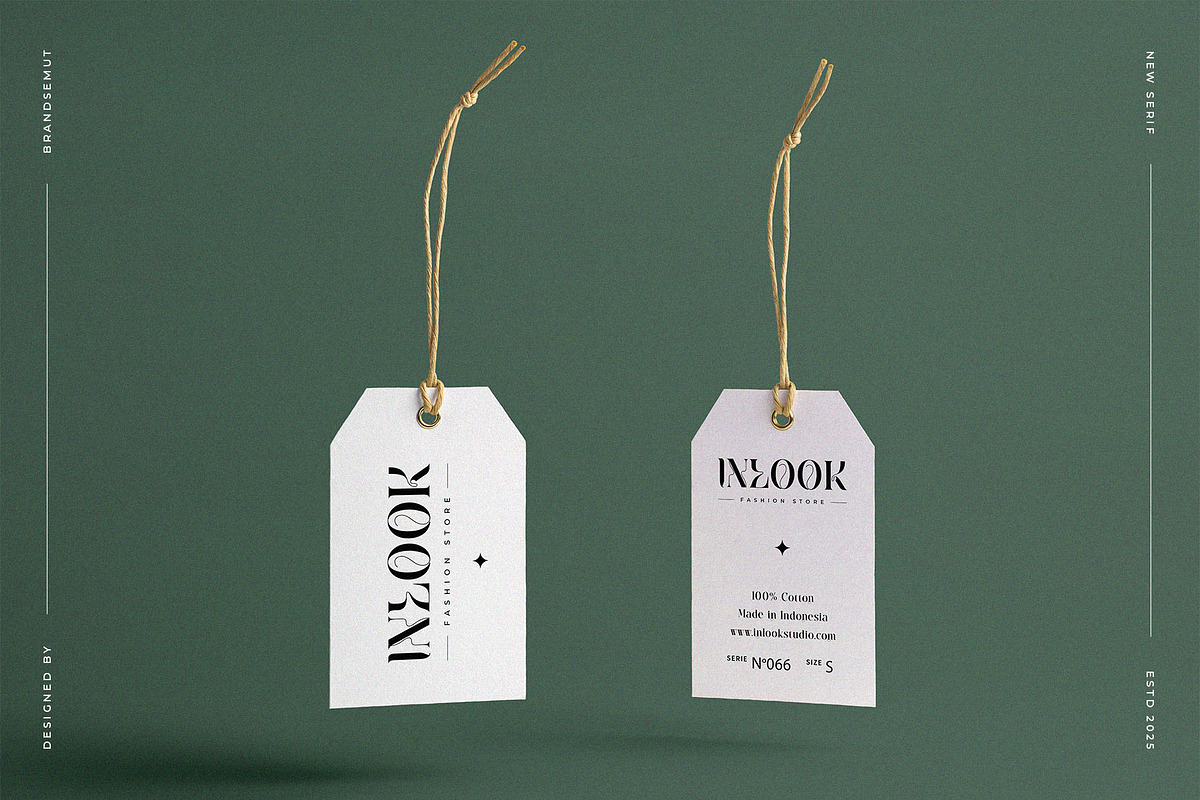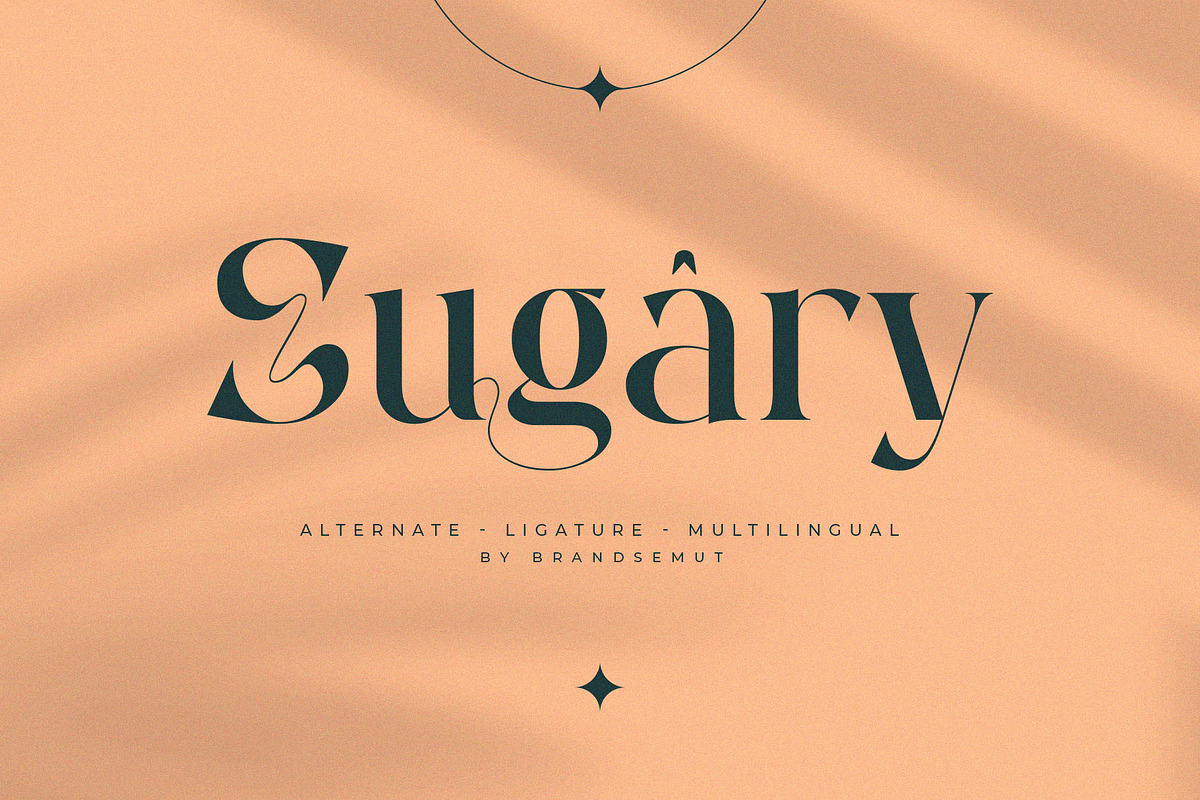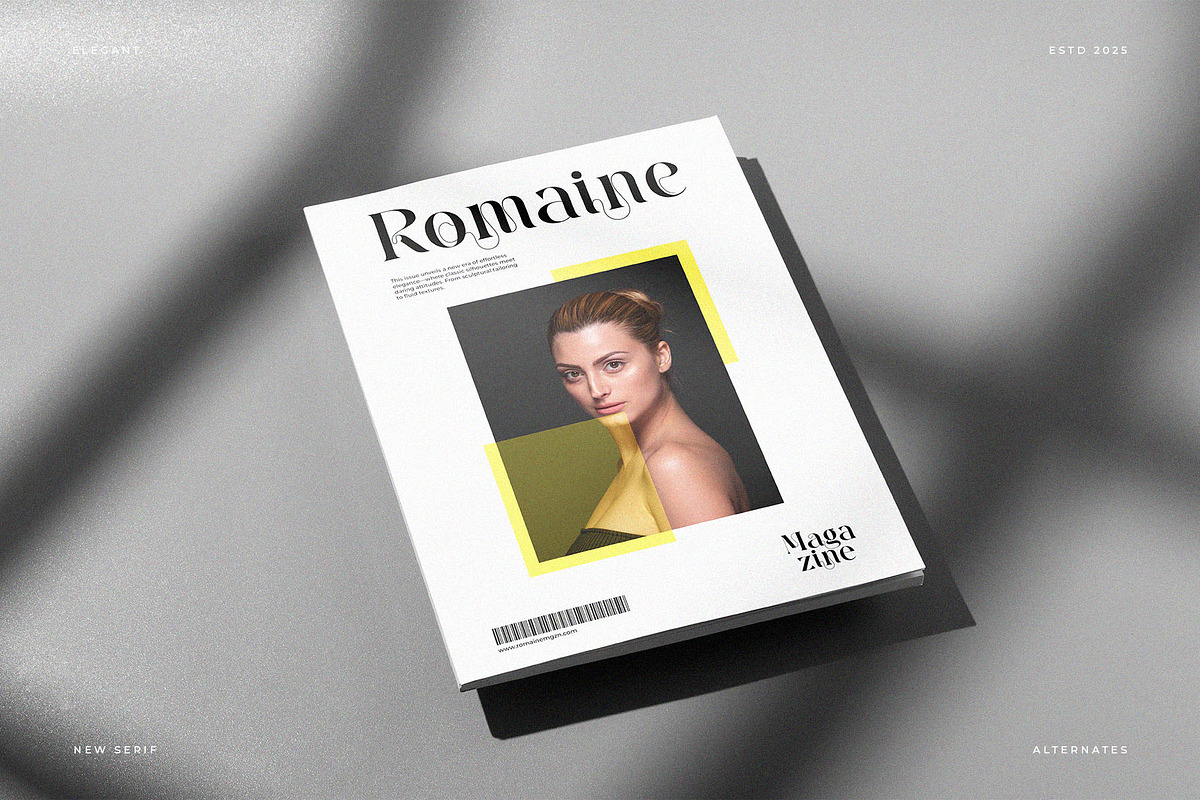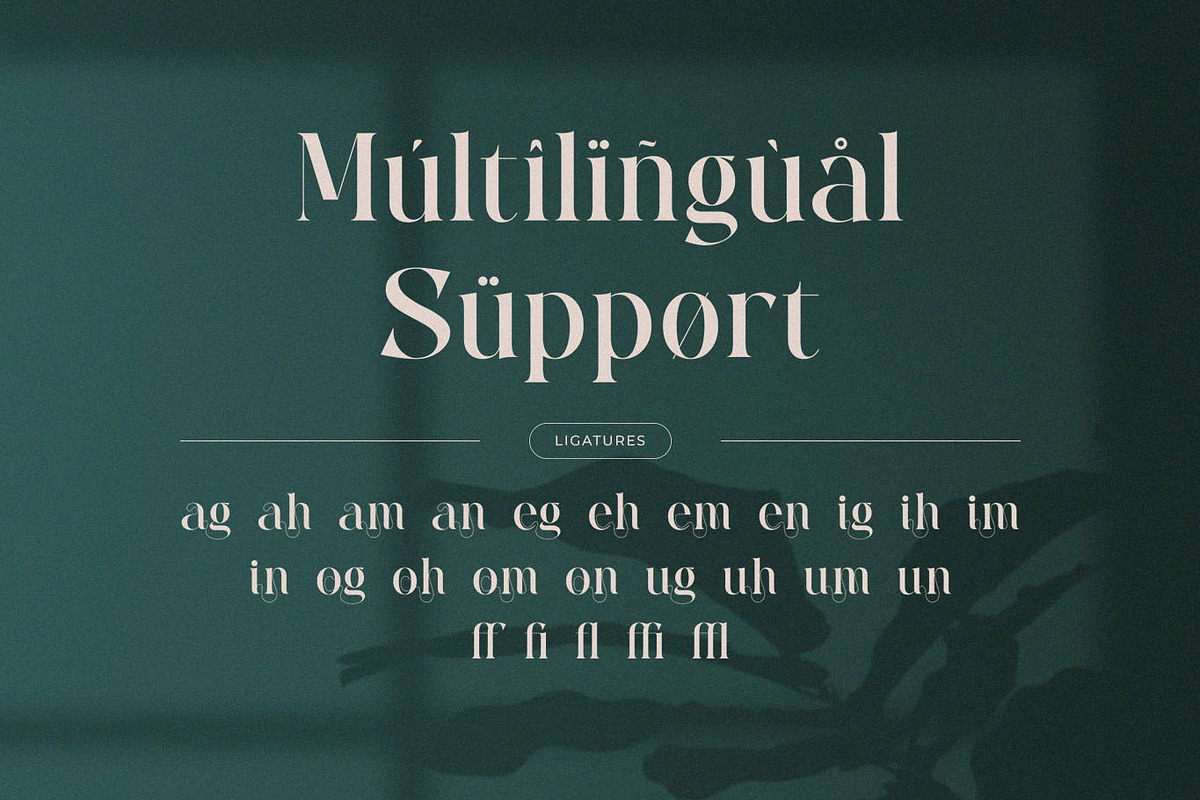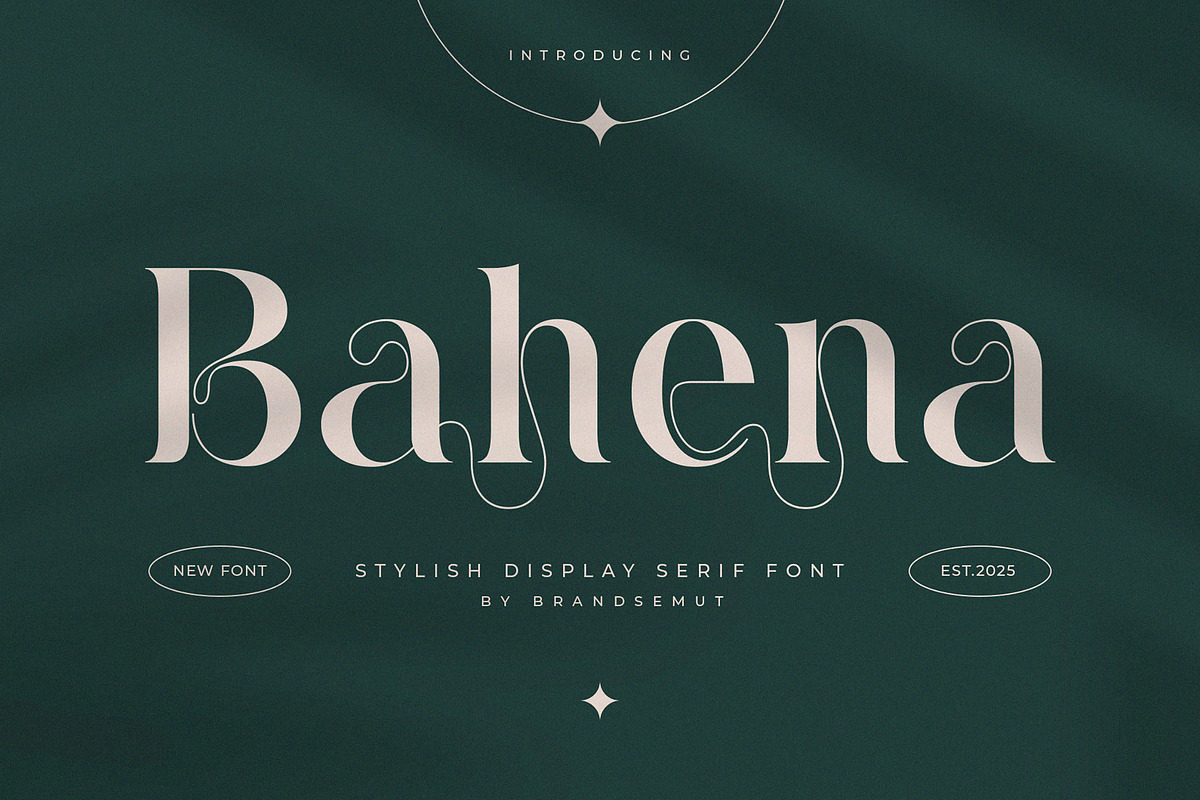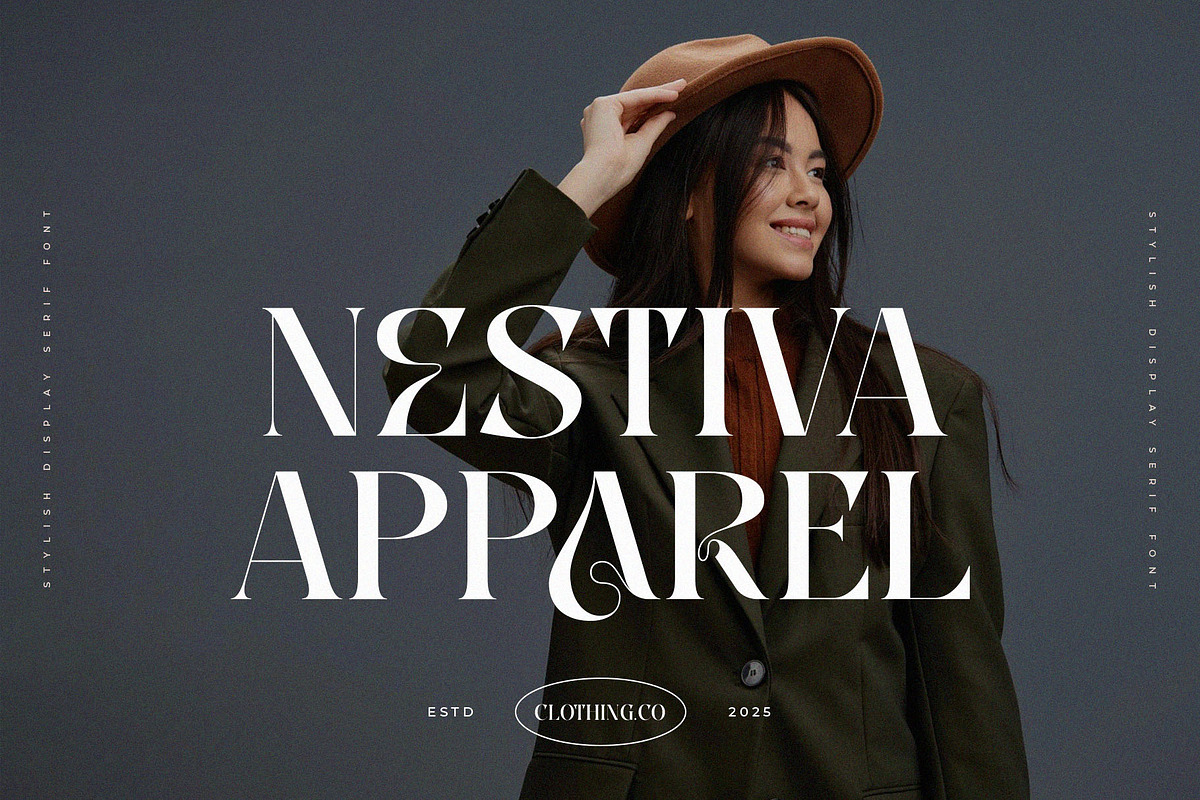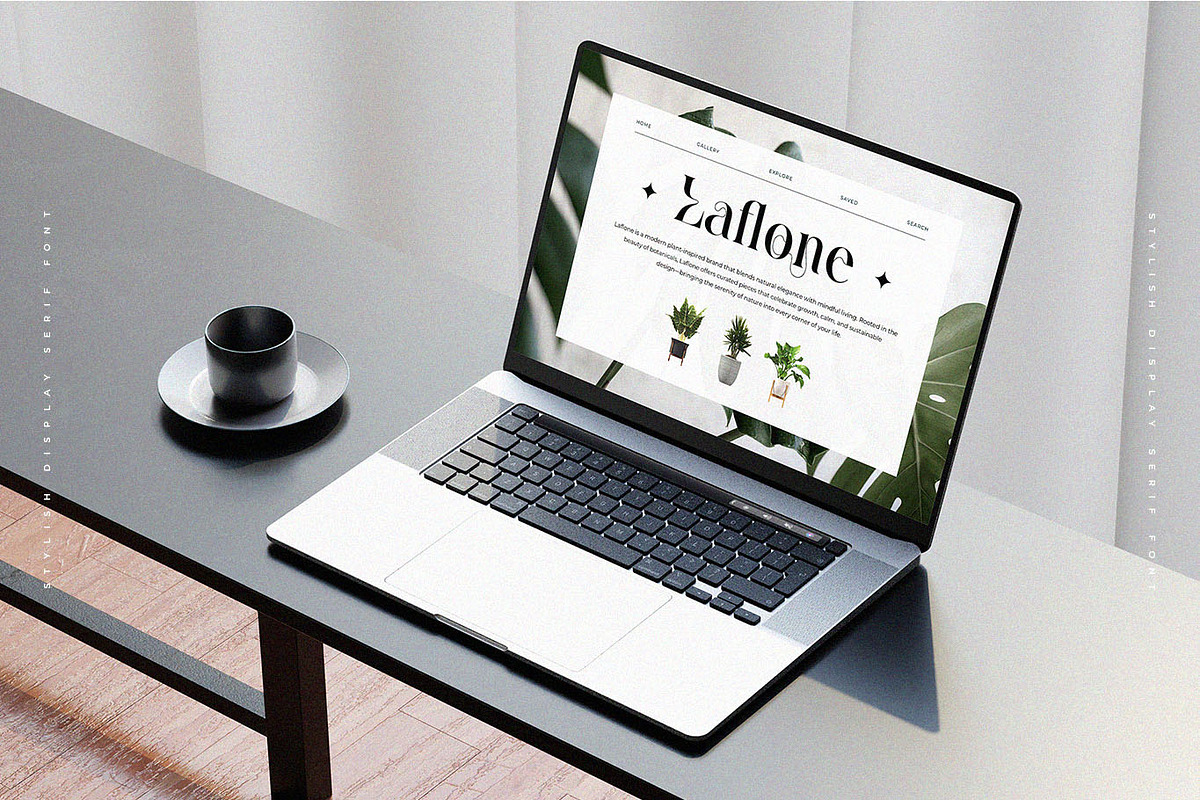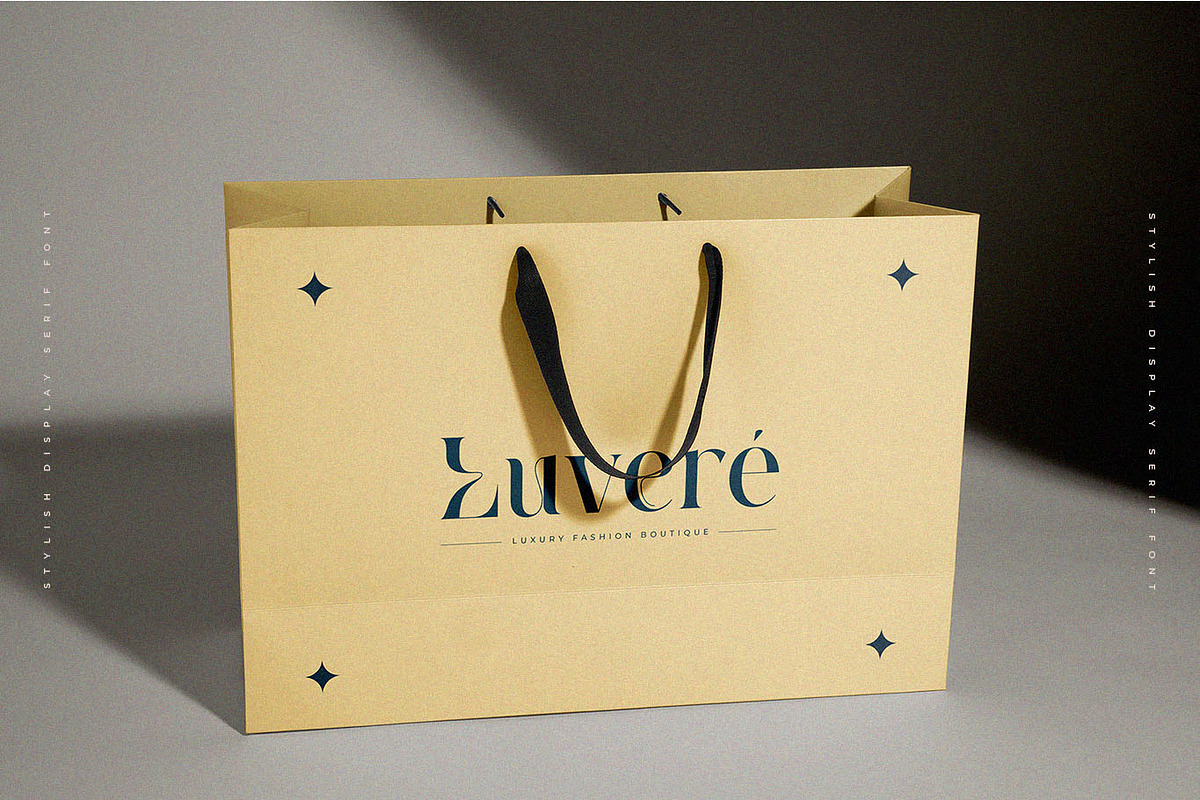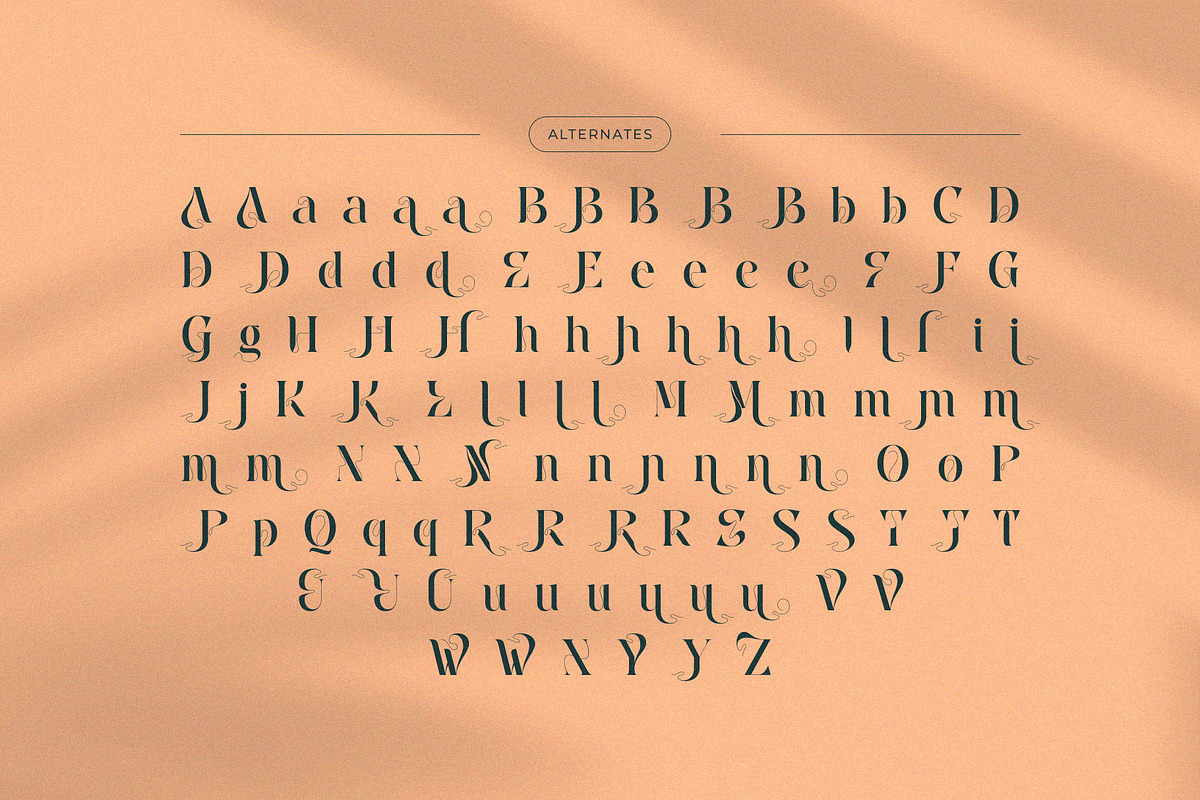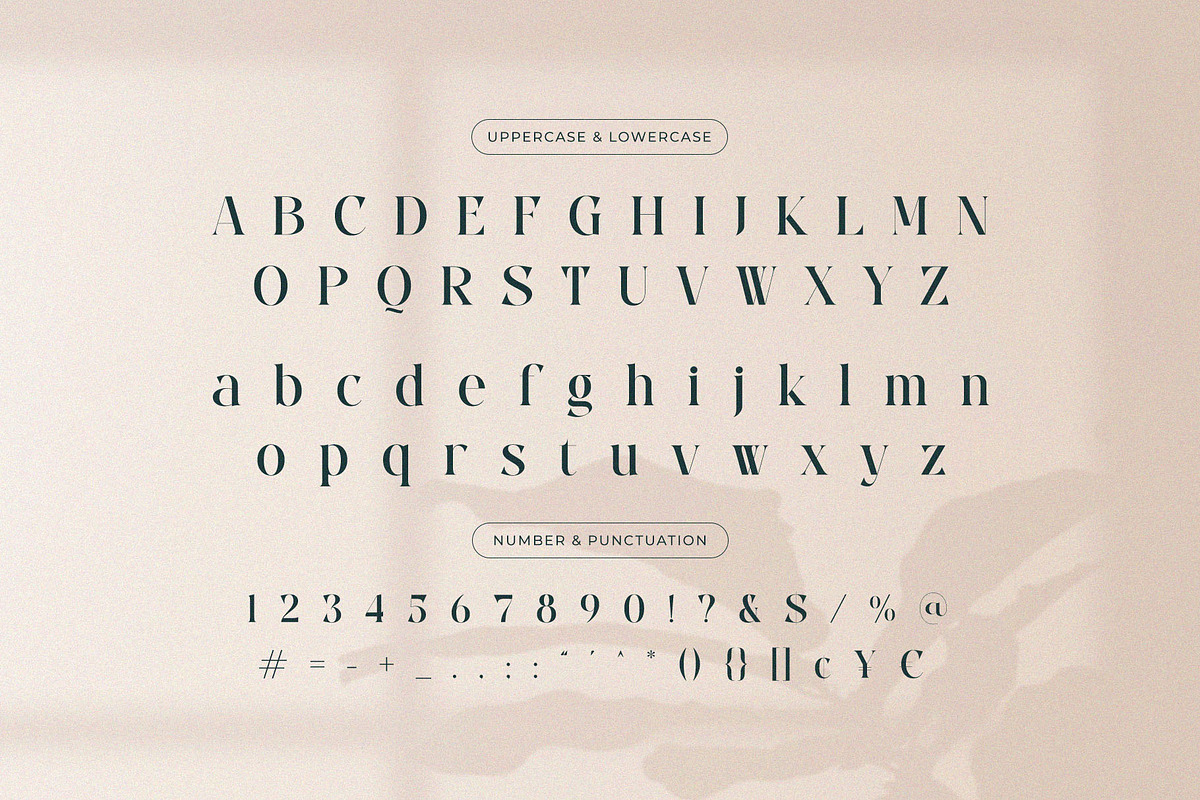
Bahena – Elegant Display Serif Font
Bahena – Elegant Modern Display Serif Font with Luxury Swashes & Alternates
Introducing Bahena – a beautifully crafted display serif font that blends timeless elegance with modern sophistication.
Bahena is a luxurious serif typeface designed with meticulous attention to detail, featuring graceful curves, refined strokes, and sweeping swashes that exude femininity and charm. Its high contrast between thick and thin strokes, paired with stylish ligatures and elegant alternate characters, makes Bahena a perfect choice for premium branding and sophisticated designs.
Whether you are working on a high-end fashion brand, a wedding stationery suite, a luxury product label, or a personal logo, Bahena will elevate your typography to the next level. This font is especially well-suited for editorial designs, social media graphics, business cards, packaging, and website headers where elegance and visual impact are key.
- Uppercase & Lowercase letters
- Beautiful stylistic alternates & swashes
- Elegant ligatures
- Multilingual support (Western European languages)
- Perfect for both digital and print use
Use Cases:
- Luxury branding & logo design
- Wedding invitations & monograms
- Fashion editorials & magazine headlines
- Feminine product packaging
- Social media posts, quotes, and banners
- Elegant website headers & hero text
Bahena’s sophisticated serif curves make it an ideal font for creators, designers, and brands that aim to leave a lasting impression. Its stylish and romantic look delivers both professionalism and warmth, ensuring your typography feels elevated and intentional.
Create timeless elegance in every project — with Bahena.